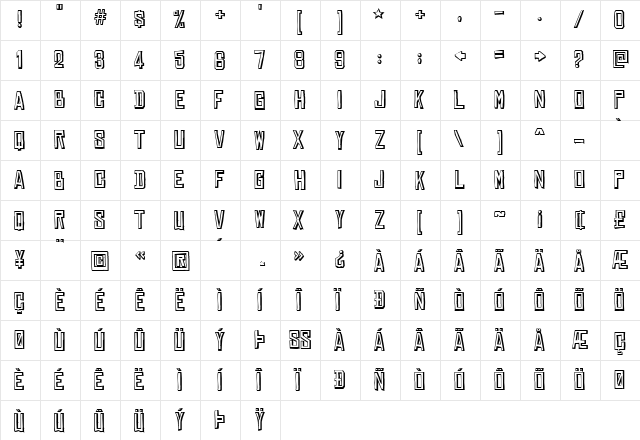
Chinese Rocks Shaded Regular
Design Context for Chinese Rocks Shaded Typeface
Chinese Rocks Shaded takes a measured approach to typography — its balanced proportions and neutral character make it a reliable workhorse for both digital and print work.